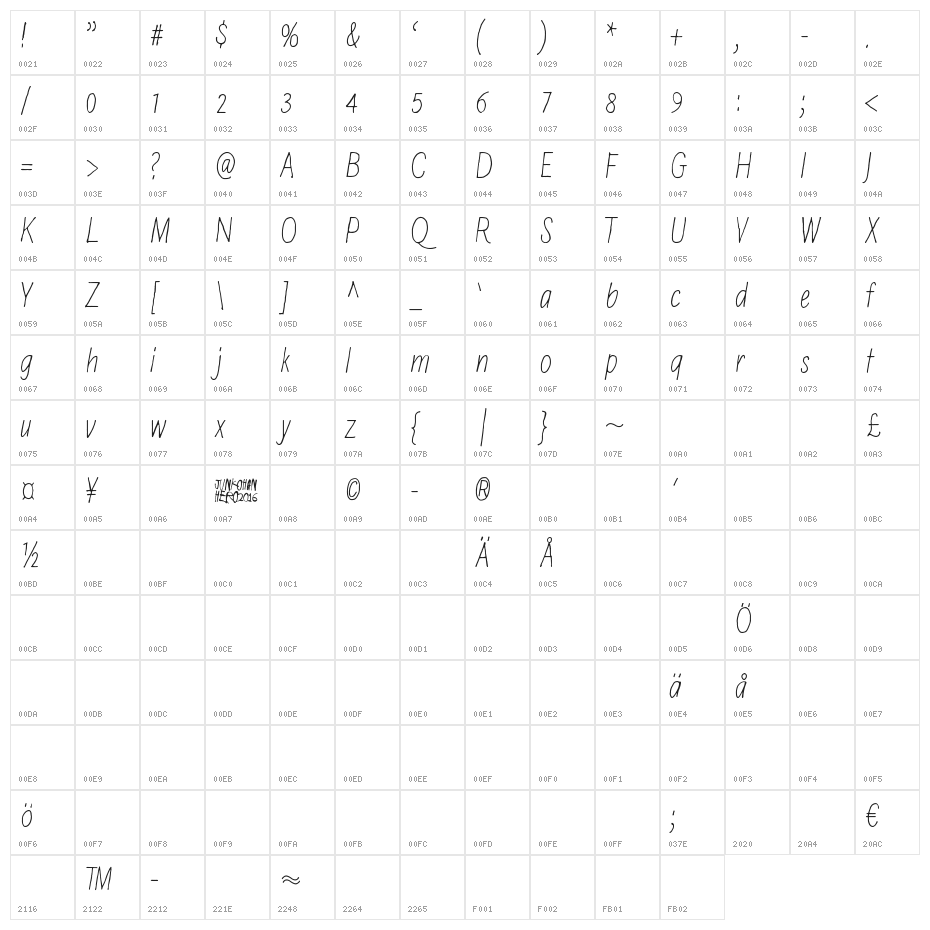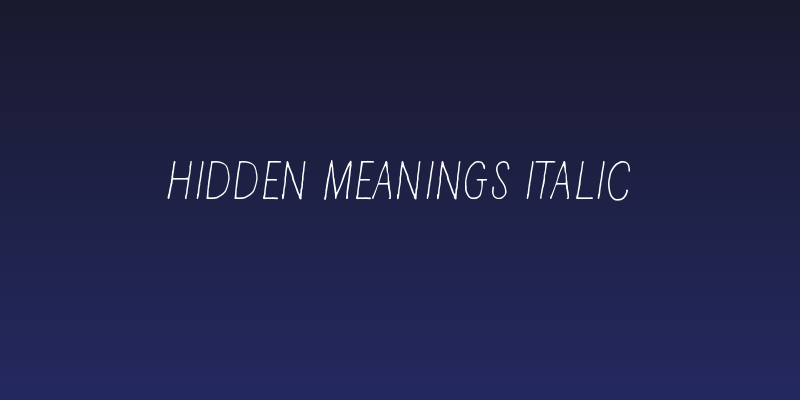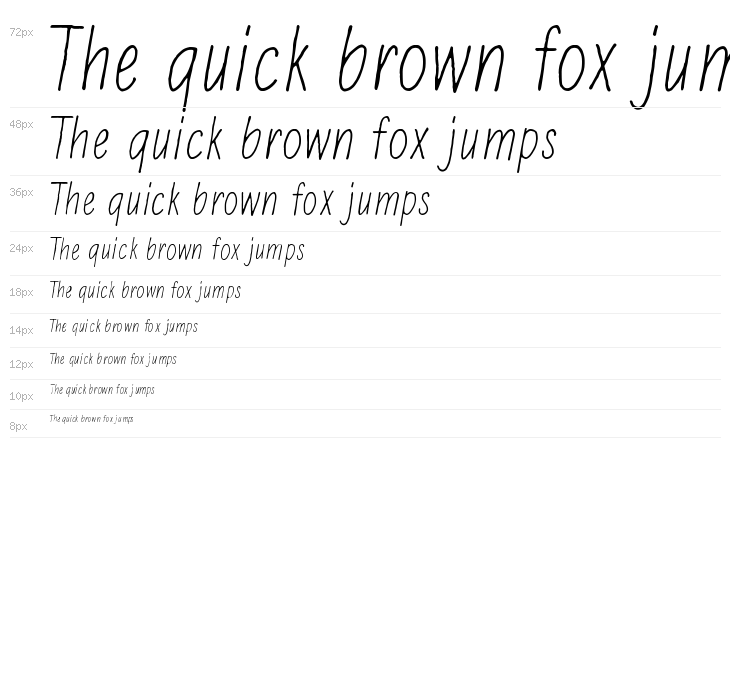
Hidden meanings Italic Font
Hidden meanings Italic Description
This font features a handwritten, italic style with a casual and organic feel. The letters are slightly slanted, giving it a dynamic and fluid appearance. The strokes are consistent and smooth, with a medium contrast between thick and thin lines. The characters are well-spaced, providing a clean and readable look. The font includes a full set of uppercase and lowercase letters, numbers, and a variety of special characters, making it versatile for different uses. Its informal yet elegant style makes it suitable for creative projects that require a personal touch.